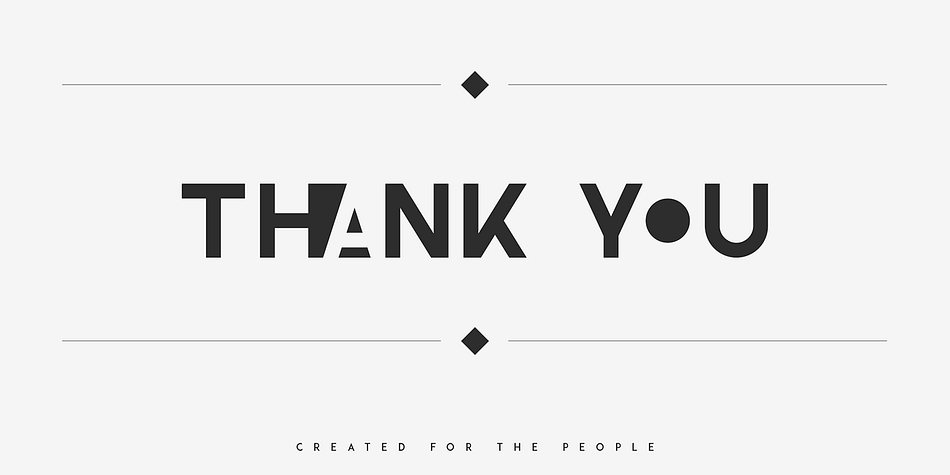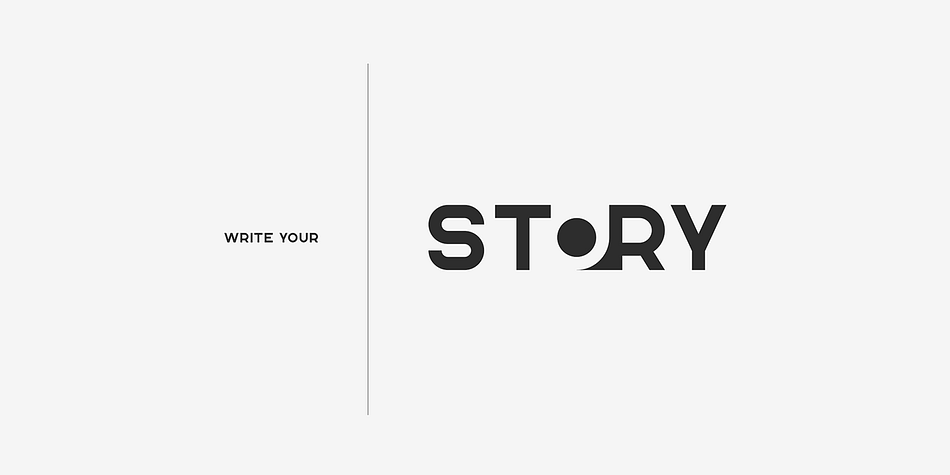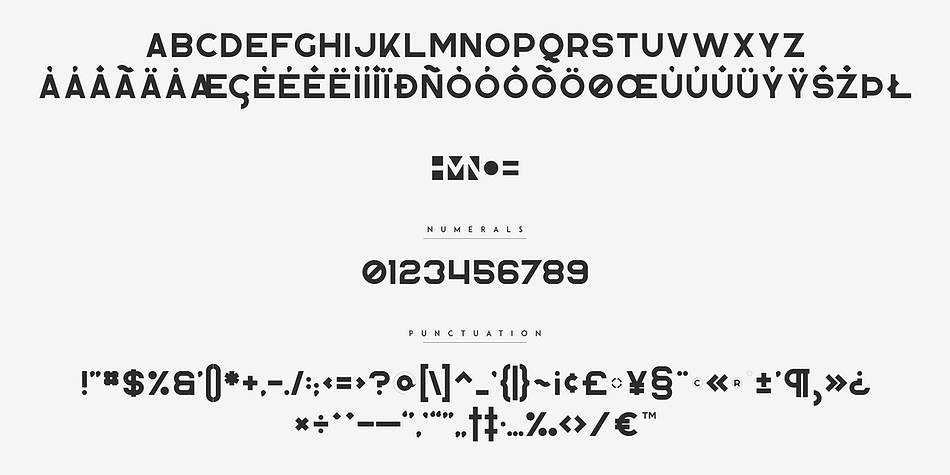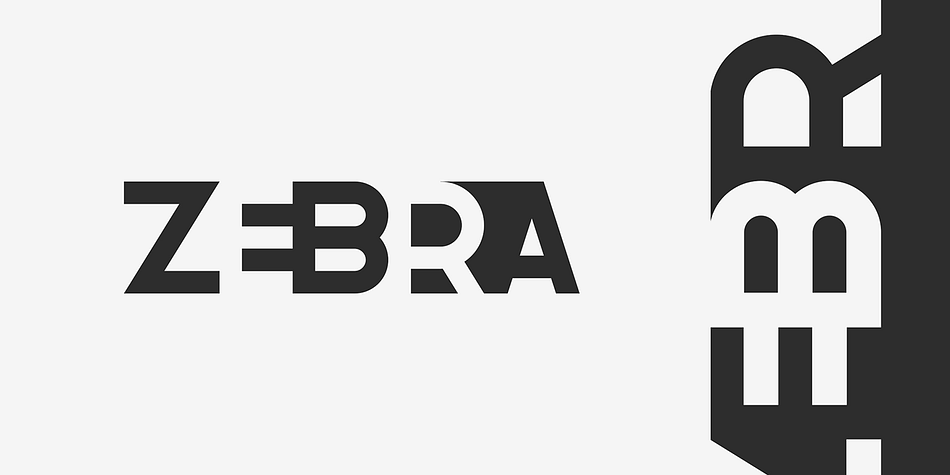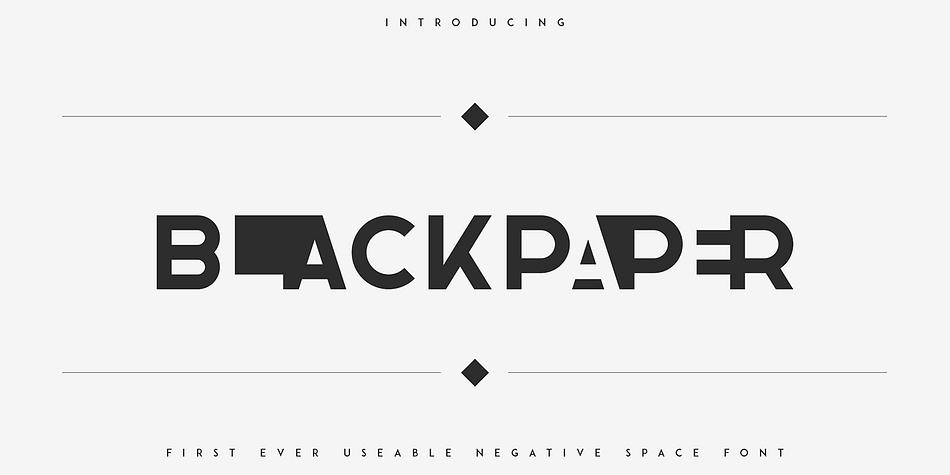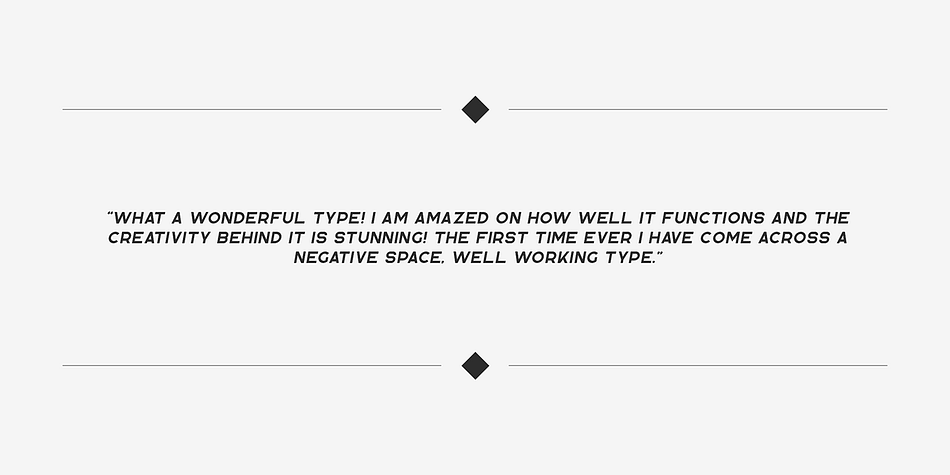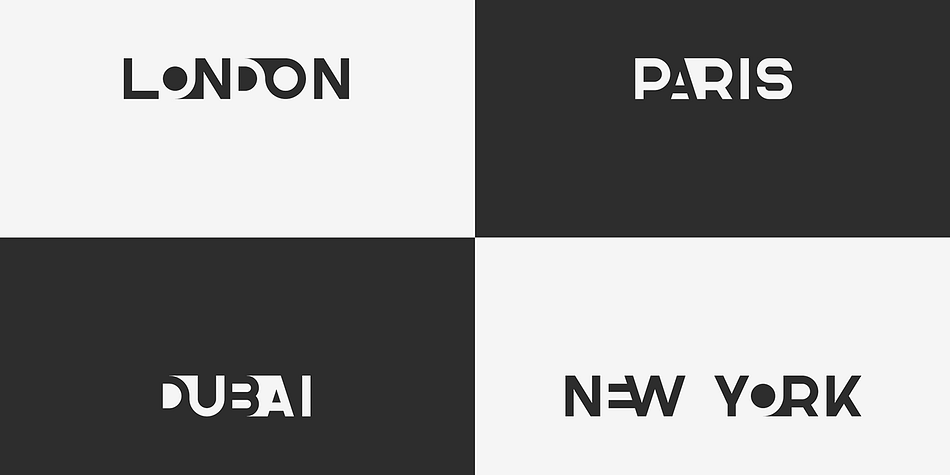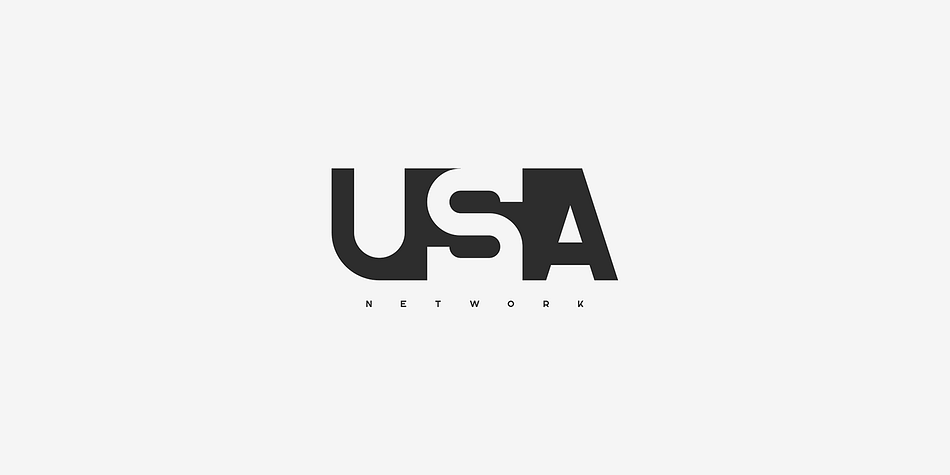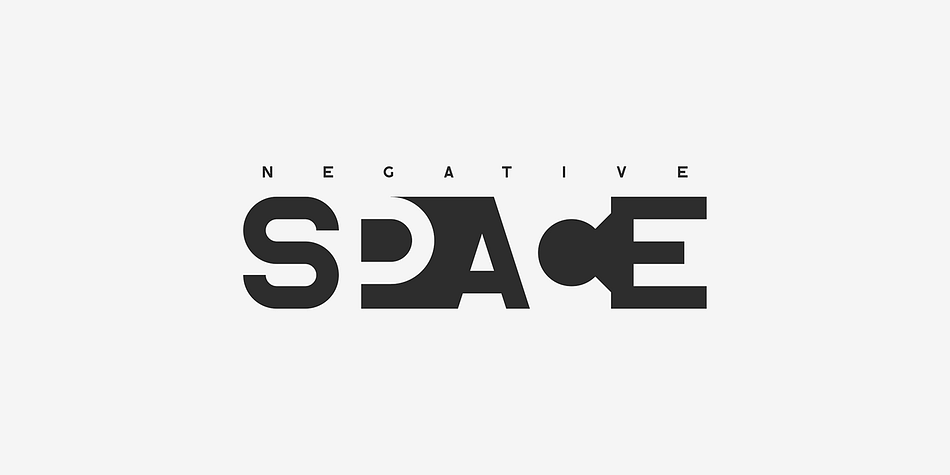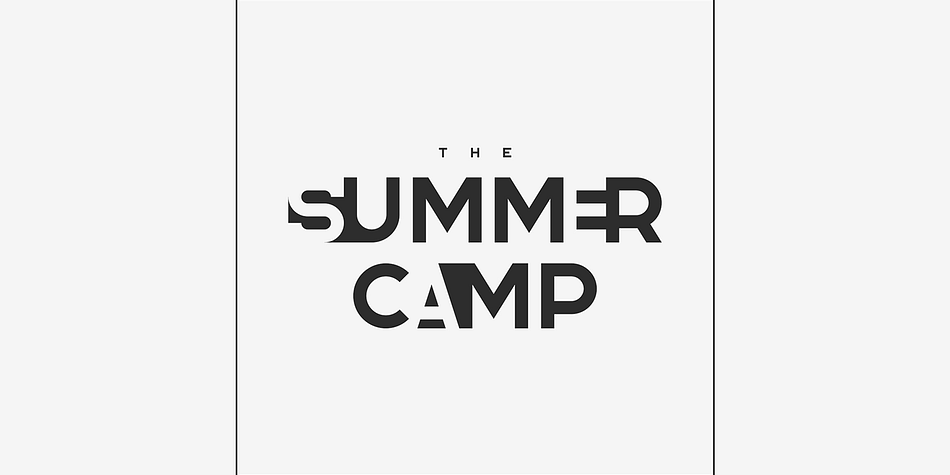
BLACKPAPER
Blackpaper is a sans serif font published by VPcreativeshop.
Introducing Blackpaper - first ever useable negative space font
Blackpaper is super easy to use and advanced skills are not needed
Blackpaper is bold, innovative font loaded with ligatures and multilingual support.
It’s a very versatile font that works great in large and small sizes.
Blackpaper is perfect for branding projects, home-ware designs, product packaging, magazine headers - or simply as a stylish text overlay to any background image.
Uppercase, numeral, punctuation & Symbol
Innovative
Alternates
Ligatures
Multilingual support